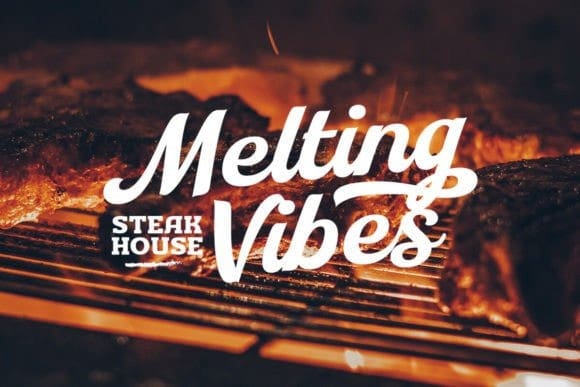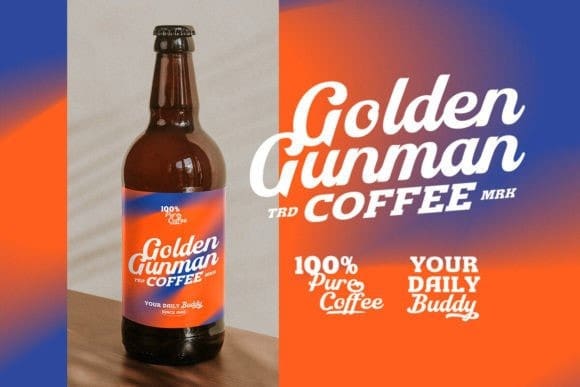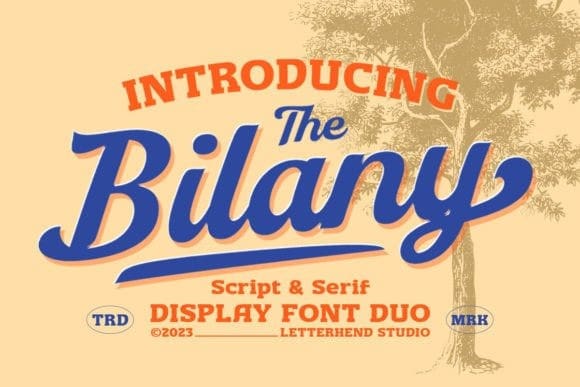
Bilany Font Duo
Bilany Font Duo is a font duo package contain a classic script and slab serif which looks great to be paired especially for vintage and adventure theme! This font duo is purposely made for headline, display or logotype, and the other various formal forms such as invitations, labels, logos, magazines, books, greeting / wedding cards, packaging, fashion, make up, stationery, novels, labels or any type of advertising purpose.